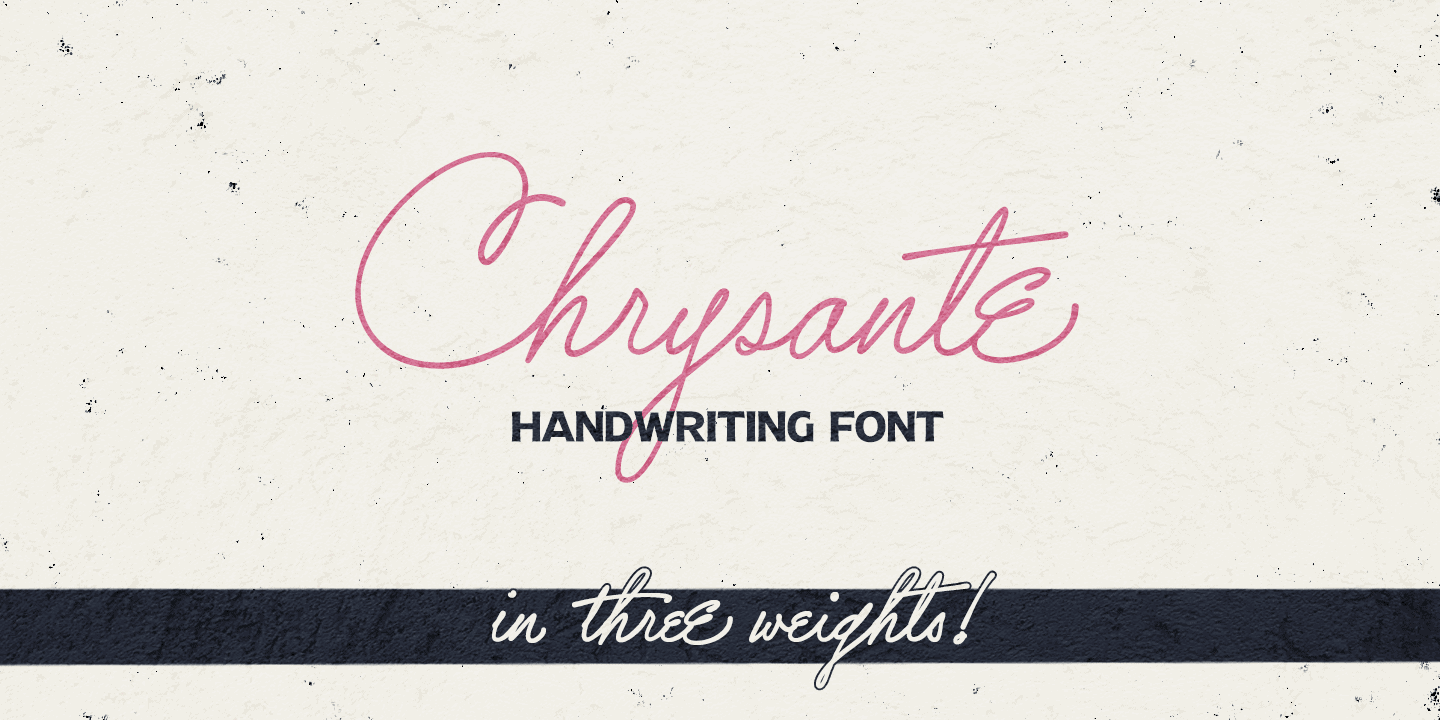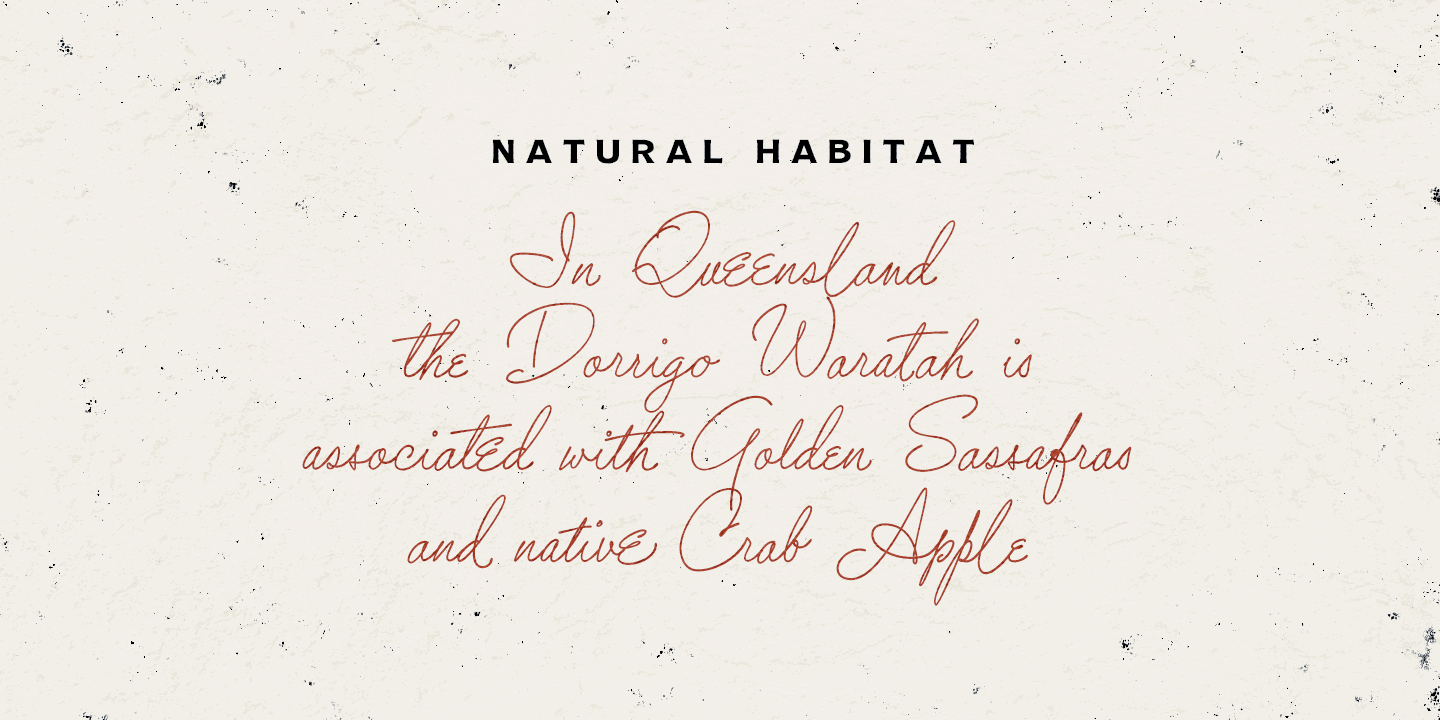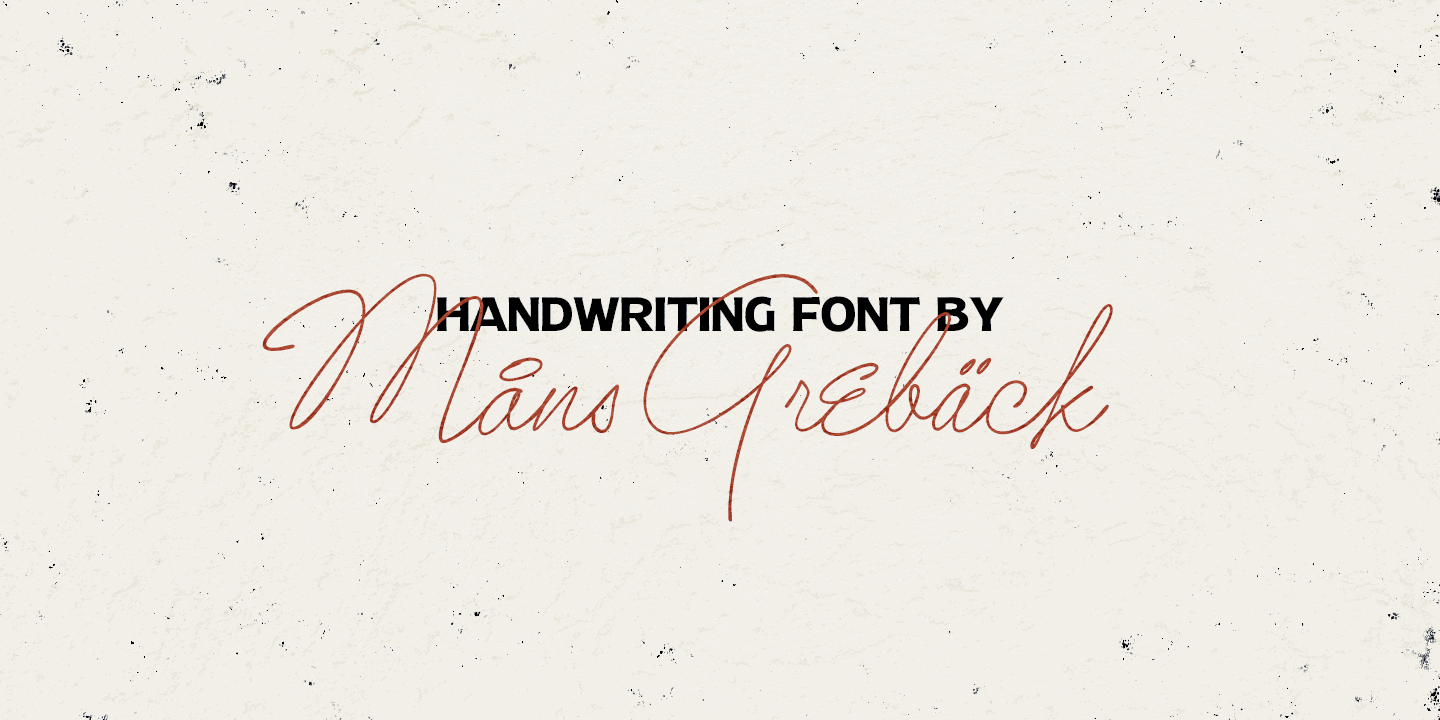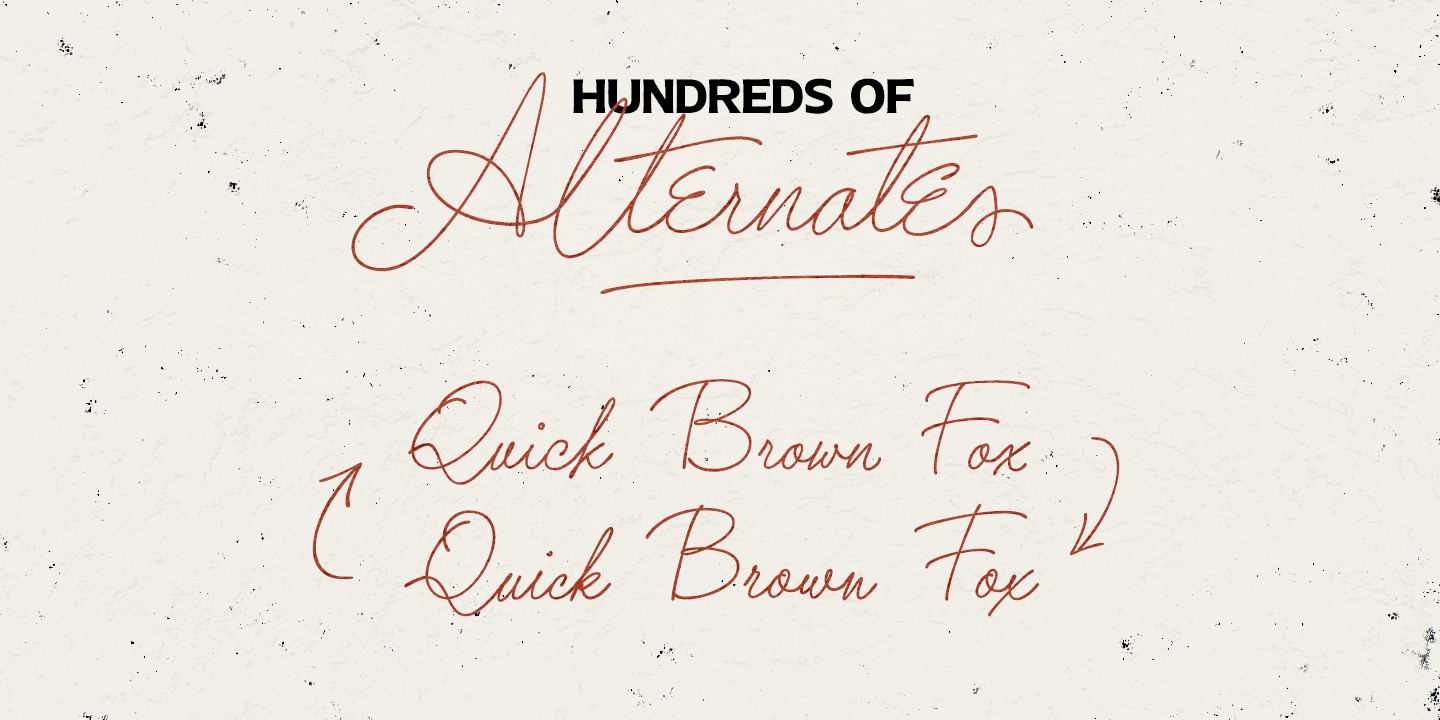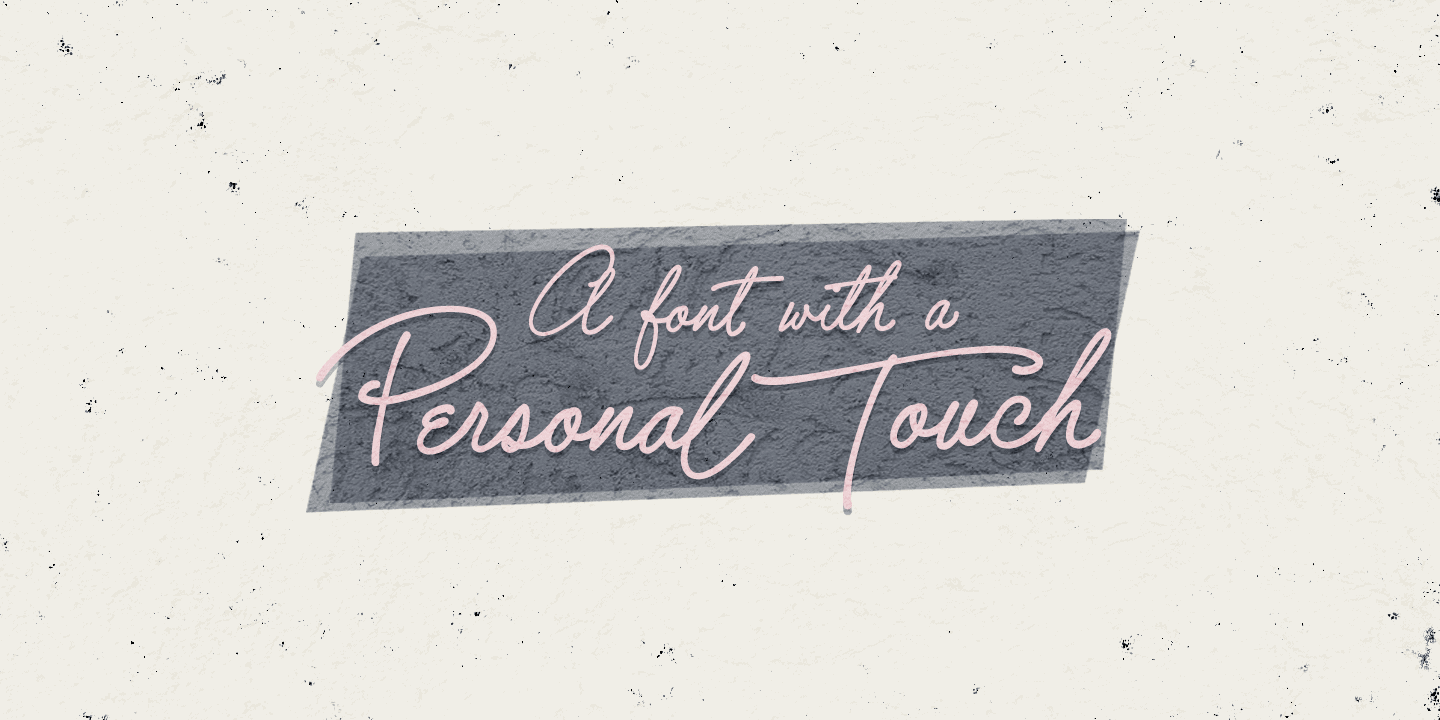
Chrysante
Chrysante is a flowing pen script. The typeface was drawn and created by Måns Grebäck between 2018 and 2020. The ink script family consists of three weights: Chrysante Thin, Chrysante Medium and Chrysante Bold. Its multiple alternate alphabets gives the font a true handwritten feeling. The font contains all characters you’ll ever need, including all punctuation and numbers. It has an extensive lingual support, covering all European Latin-based scripts.